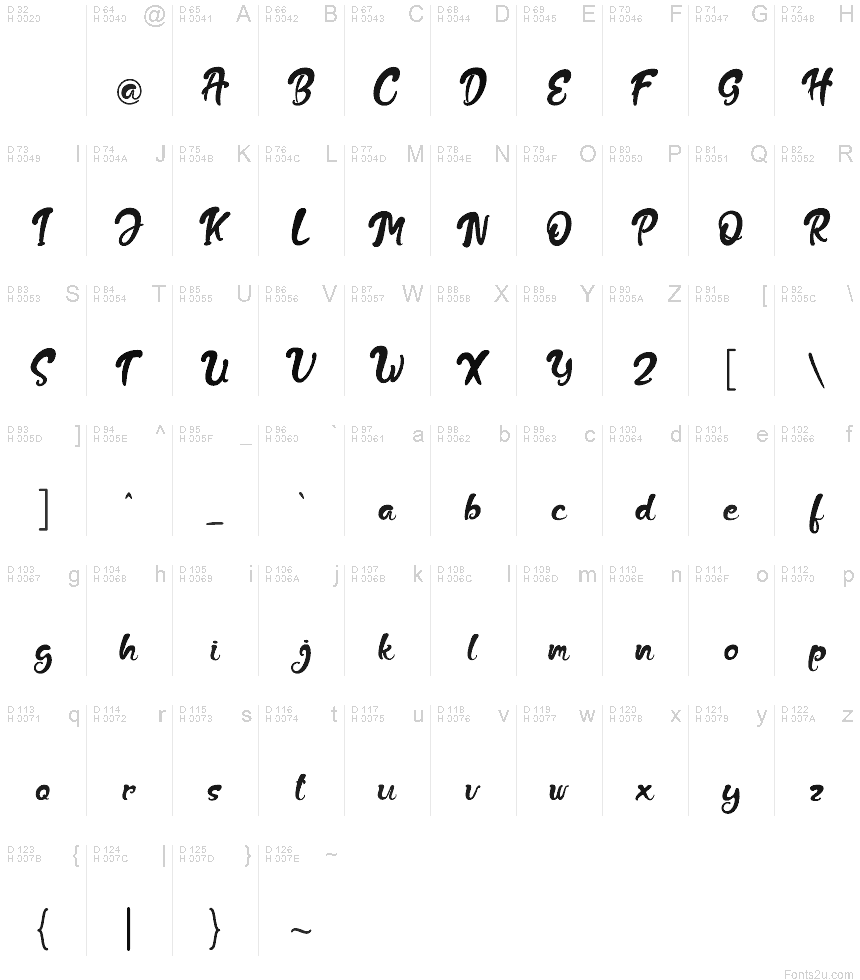
Hi Font Lovers! I want to introduce The Fox Tail Font Duo&Extras. The Fox Tail Font Duo & Extras is
a font that is inspired by the retro style and foxtail. This font has a unique and interesting shape.
The Fox Tail Regular